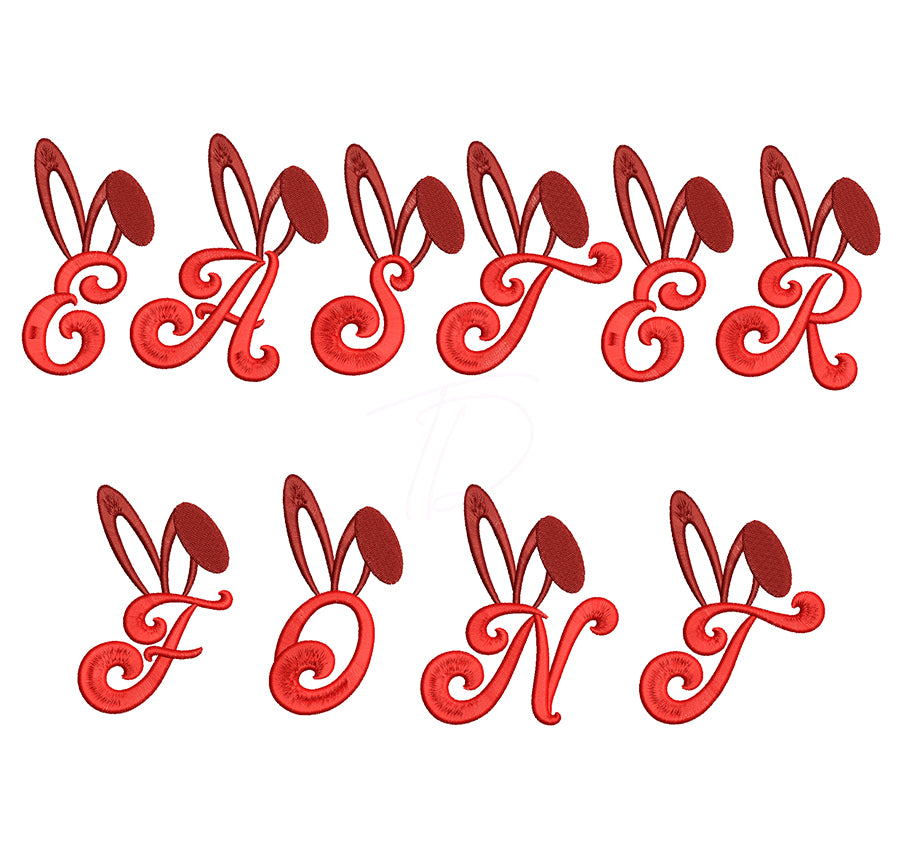
Easter embroidery font. Easter bunny Embroidery alphabet for Easter. BX format
Easter embroidery font.
This font comes with letters in 3 sizes, A-Z (Upper case)